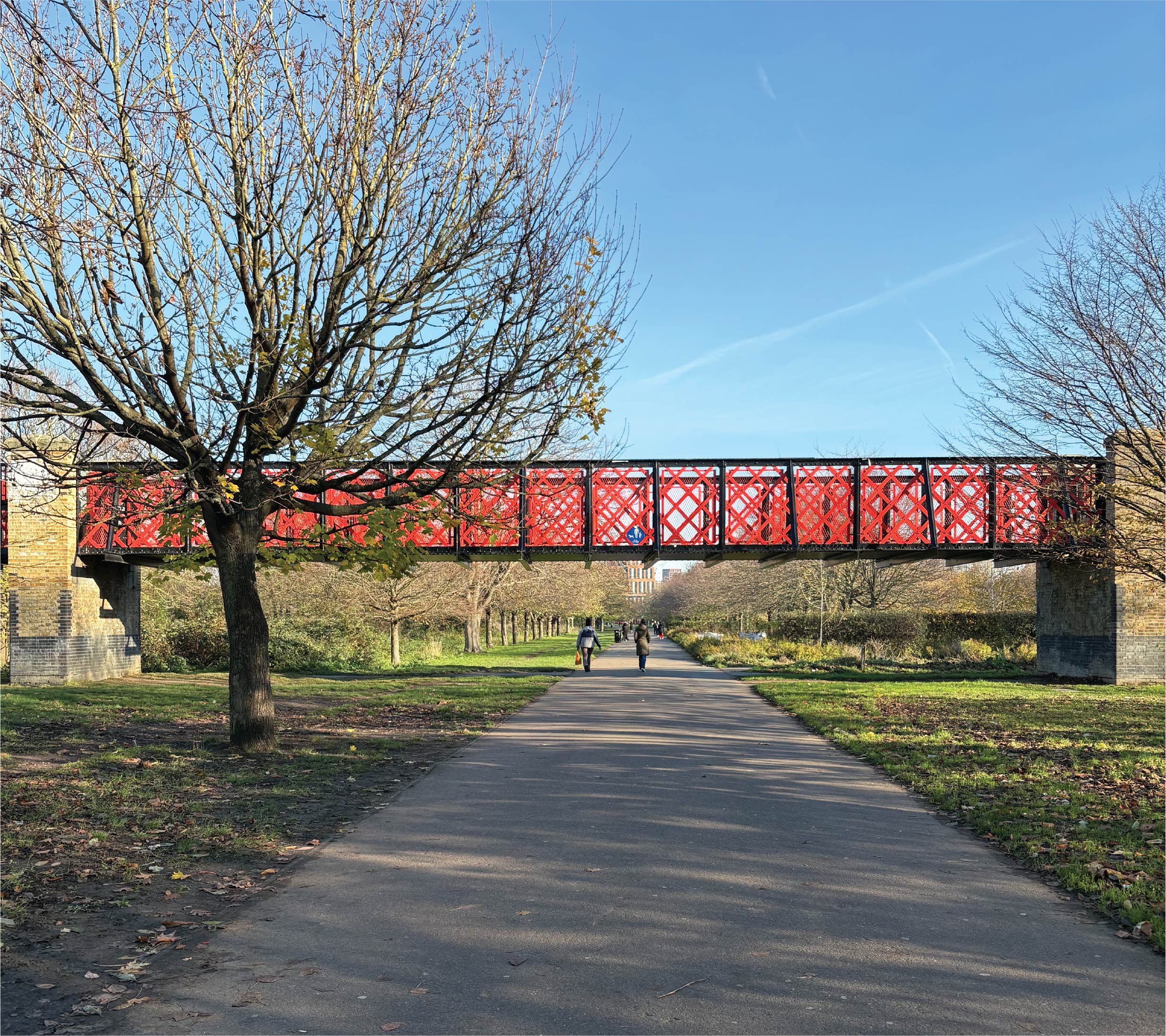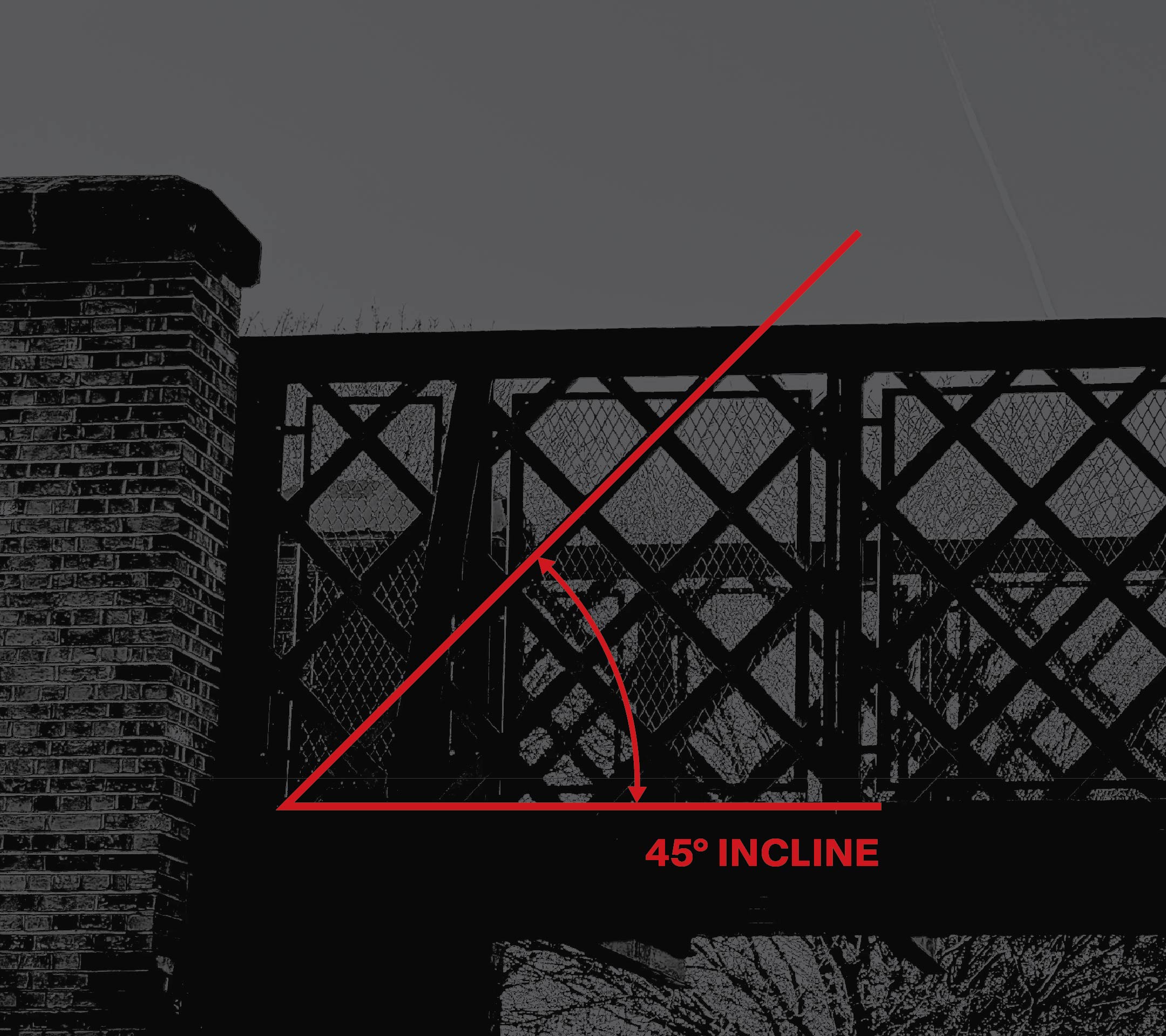
My typeface is inspired by the Old Canal Footbridge in Burgess Park, using the bridge's lattice truss as the structural logic behind each letterform. Built from repeated 45-degree diagonals, the design mirrors the footbridge's angle, rhythm, and modular connections. Narrow proportions and sharp terminals reference engineered steel members and the sense of tension held within the frame. The reduced geometric strokes treat the bridge as a functional system rather than decoration, emphasising repetition, joints, and load-bearing clarity. Translating these architectural components into typography, the typeface presents the footbridge as both an industrial trace and a distinctive local landmark.